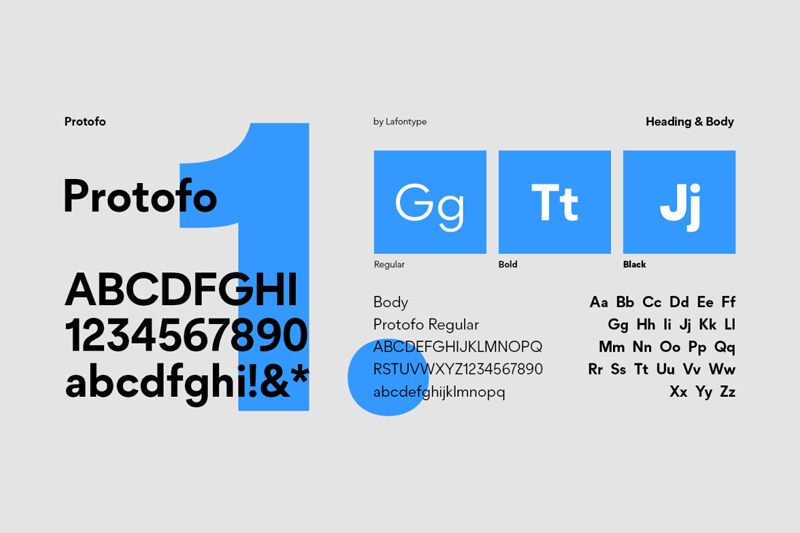
Protofo Bold Italic font by Lafontype is a free humanist sans serif font that hits the sweet spot between geometric precision and easy, conversational warmth. Its bold weight and forward-leaning stance add momentum to text, while the soft curves and open shapes keep everything highly readable on screens and in print. As part of the wider Protofo family, it drops effortlessly into systems where you need clear hierarchy and consistent voice.
Using Protofo Bold Italic, you get a go-to style for app interfaces, buttons and CTAs, tech branding, editorial subheads, web banners, and punchy social graphics. The italic angle injects energy without shouting, making emphasis feel intentional rather than loud. This free font pairs naturally with lighter Protofo weights for body copy-set Bold Italic a size or two larger to create crisp, confident headings that still feel approachable.